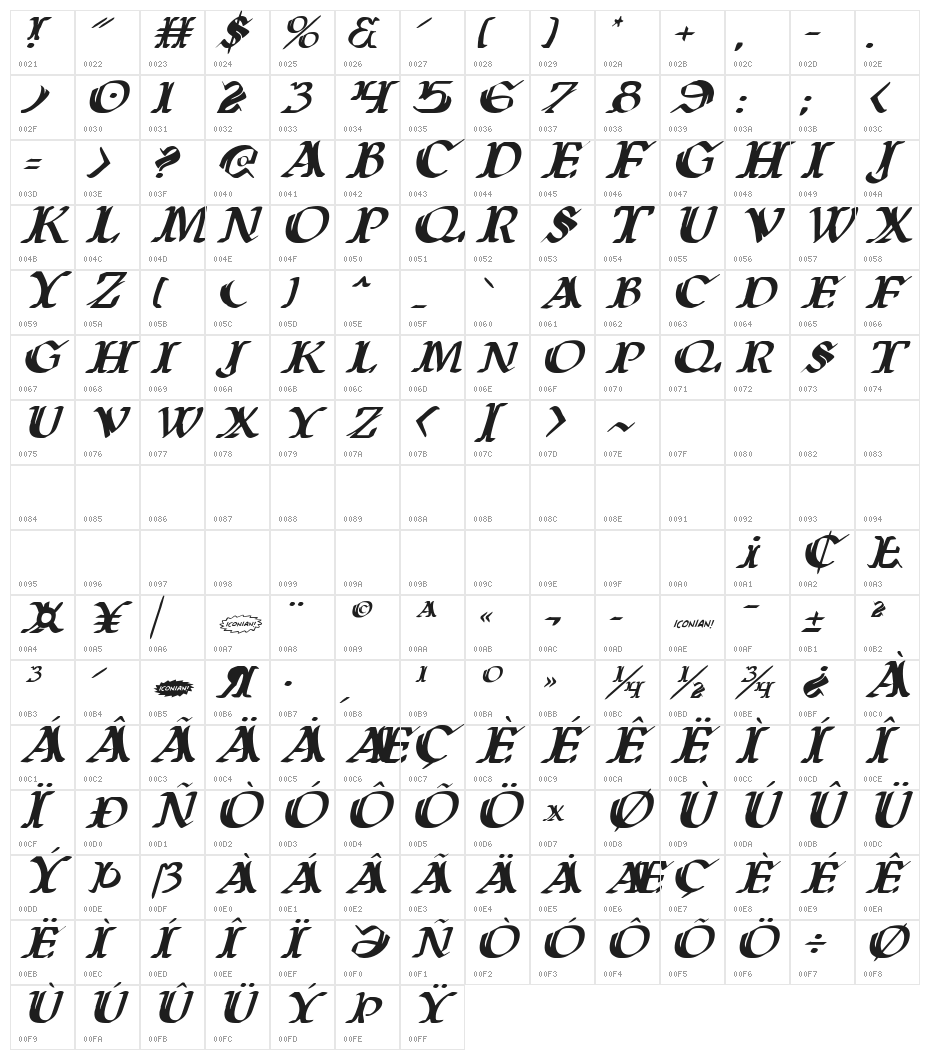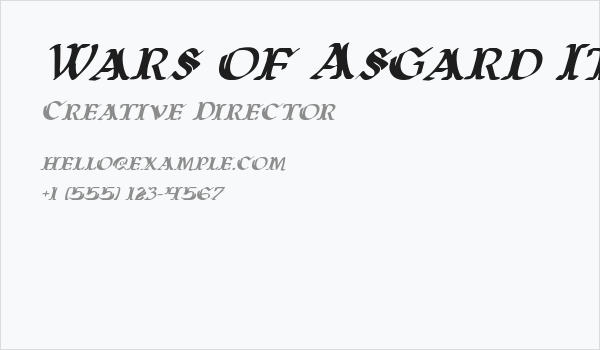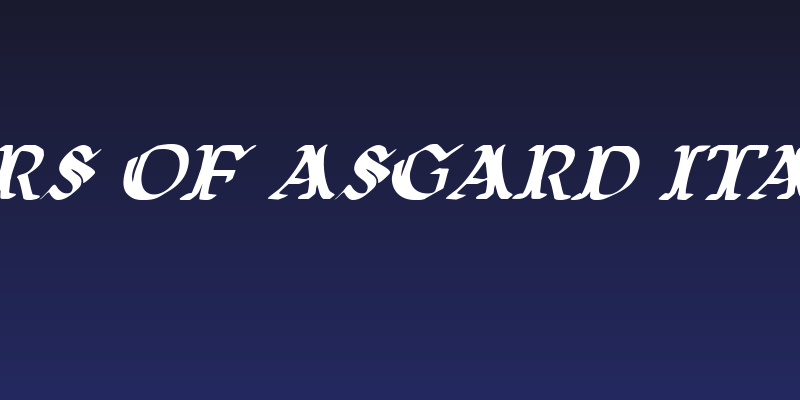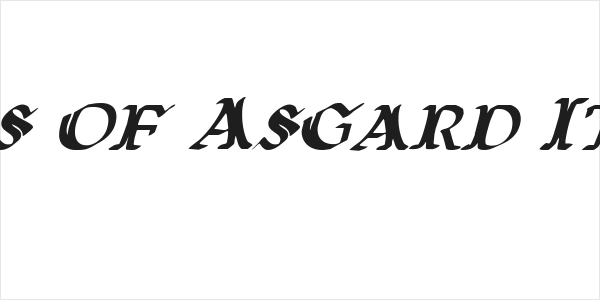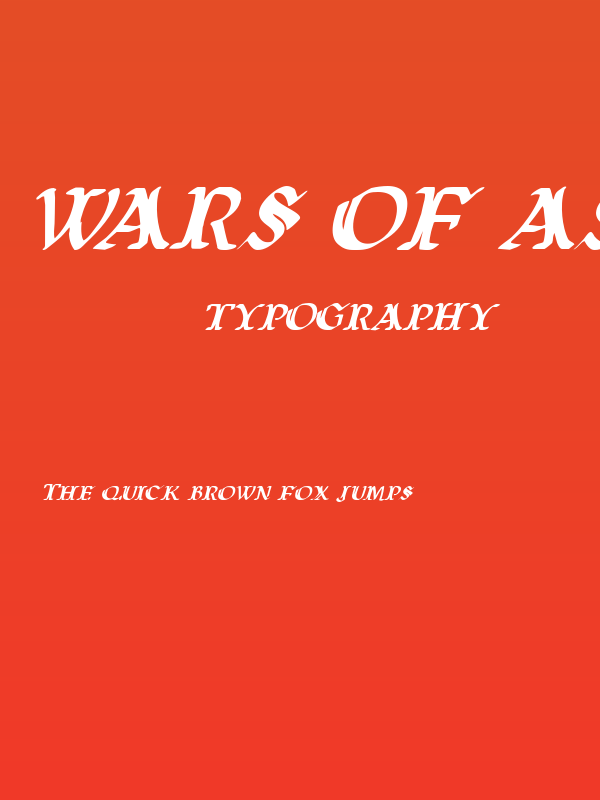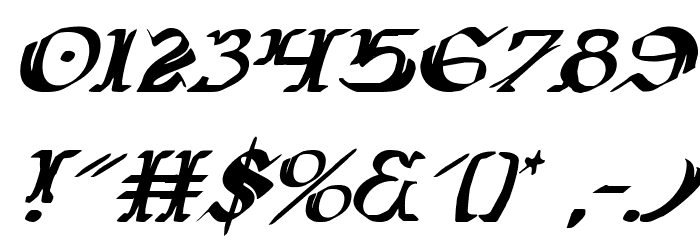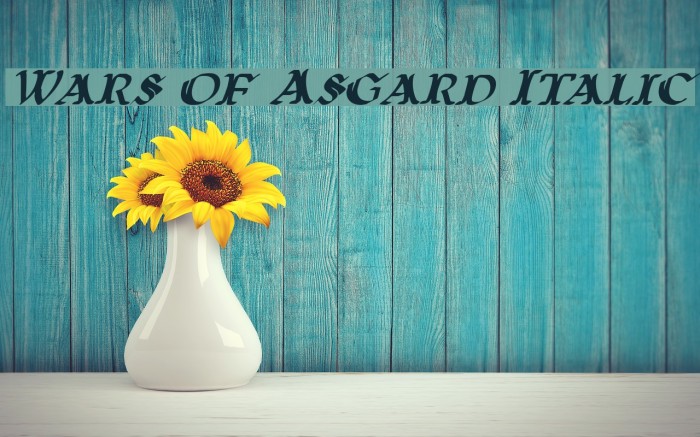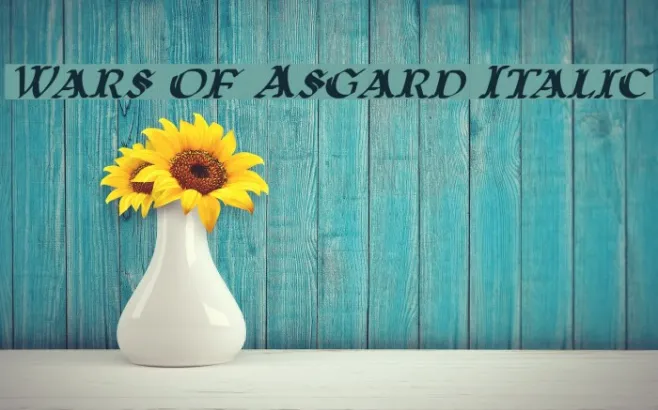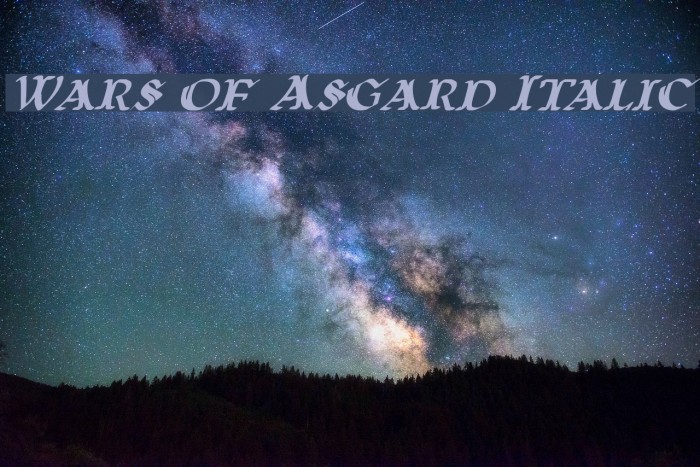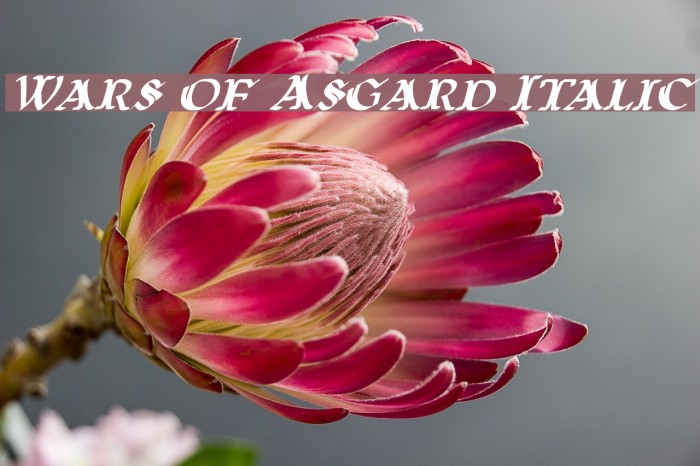
Wars of Asgard Italic Font
Wars of Asgard Italic Description
This font features a bold and dynamic italic style, characterized by sharp, angular strokes and a strong sense of motion. The letters are slanted, giving a sense of speed and urgency, while maintaining a consistent weight throughout. The uppercase and lowercase letters share a cohesive design, with distinctive serifs that add a touch of elegance. The numerals are equally bold, ensuring they stand out in any context. Special characters are designed with the same attention to detail, making them seamlessly integrate with the rest of the font. This font's unique style makes it ideal for projects that require a dramatic and impactful visual presence.
| Proposed Projects | Ideal for use in action-themed posters, video game titles, and branding that requires a strong, dynamic presence. |